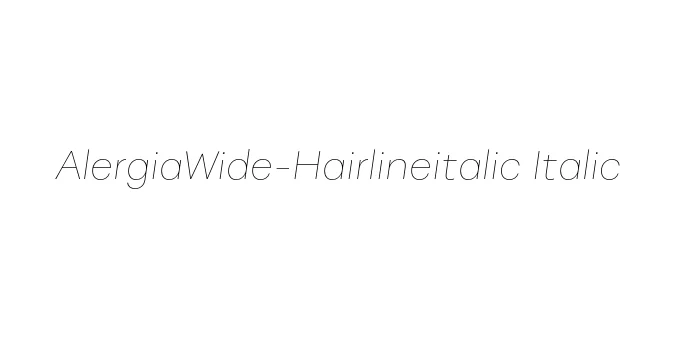
AlergiaWide-Hairlineitalic Italic
Designed by Mateusz Machalski
Alergia Wide Hairline Italic is a distinguished member of the Alergia superfamily, a comprehensive typographic project conceived by the renowned Polish designer Mateusz Machalski. This typeface is characterized by its expansive horizontal proportions and its extreme stroke delicacy, representing a masterpiece of modern minimalist design. The 'Hairline' weight stands as the pinnacle of elegance within the collection, offering a sophisticated aesthetic that bridges the gap between geometric rigidity and humanist warmth.
As part of the Alergia Wide sub-family, the italic variant introduces a dynamic slant that enhances visual flow and rhythm in high-contrast layouts. It was specifically engineered to meet the demands of high-end editorial design and luxury branding, where a subtle yet commanding presence is required. Its wide stance ensures that even at such a microscopic stroke weight, the font maintains a strong architectural presence on the page, providing a fresh and contemporary alternative to traditional grotesque or hairline typefaces.
AlergiaWide-Hairlineitalic Italic Best Uses
Perfect for high-end fashion magazine headlines and sophisticated mastheads.
Ideal for creating minimalist logos and premium brand identity systems.
Excellent for large-scale hero text and subtle decorative typographic elements.
Well-suited for delicate watermarks or artistic captions in professional portfolios.